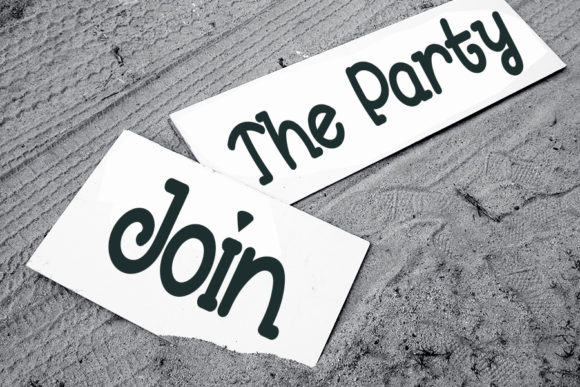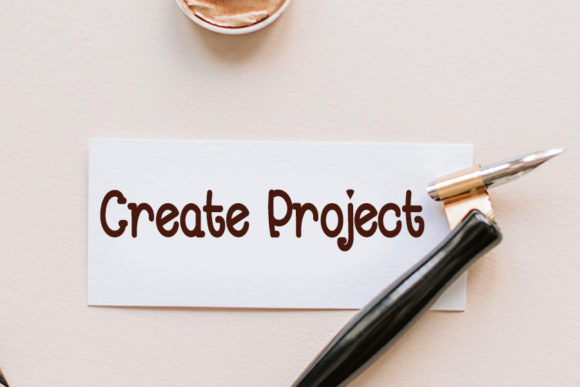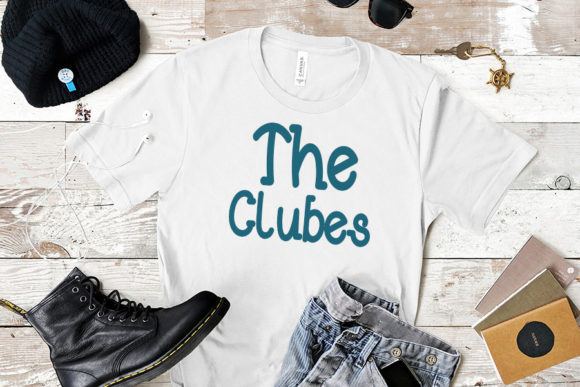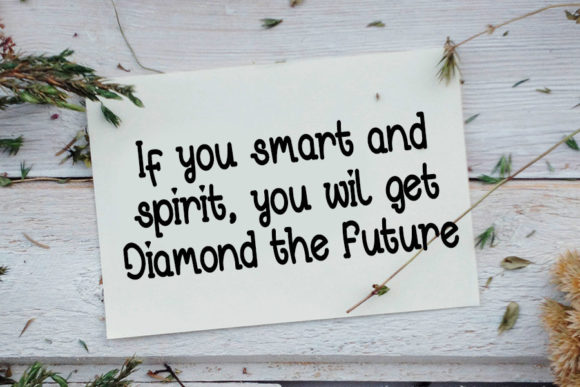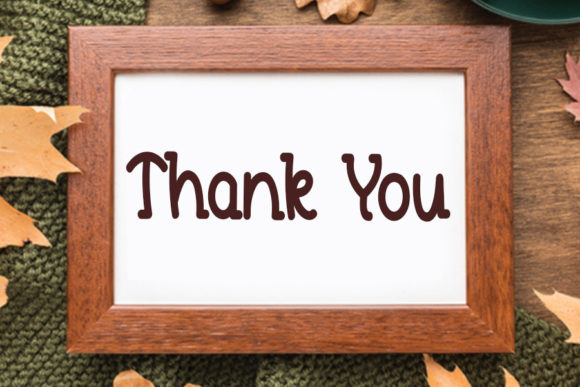
Readable Font
Readable is a unique, simple and friendly slab serif font. It can easily be matched to an incredibly large set of projects, so add it to your creative ideas and notice how it makes them stand out!